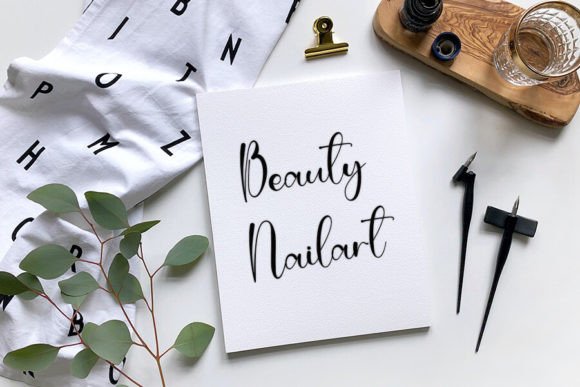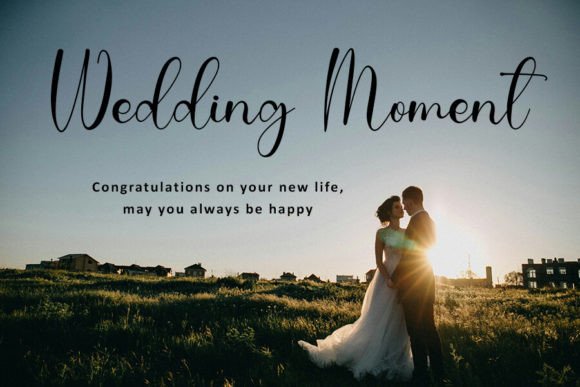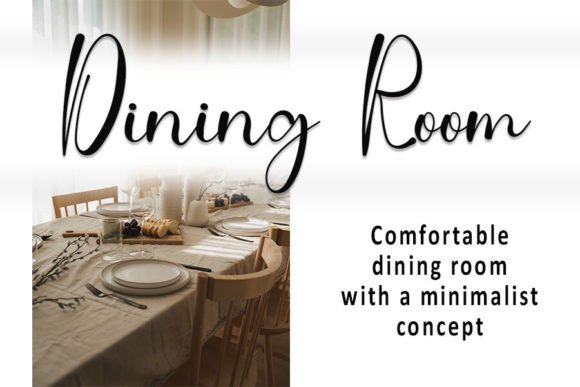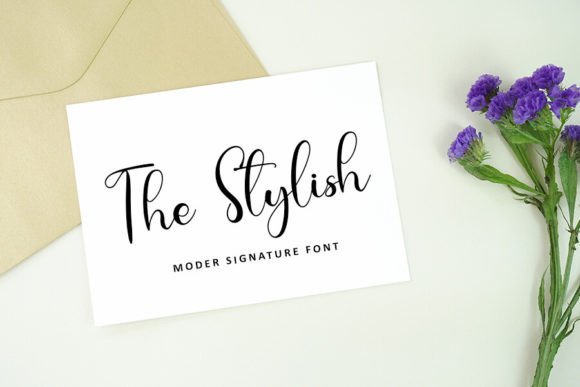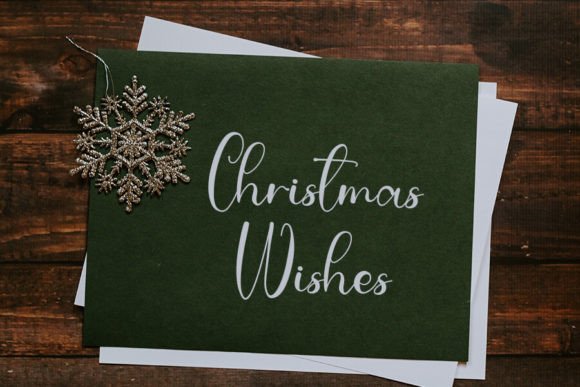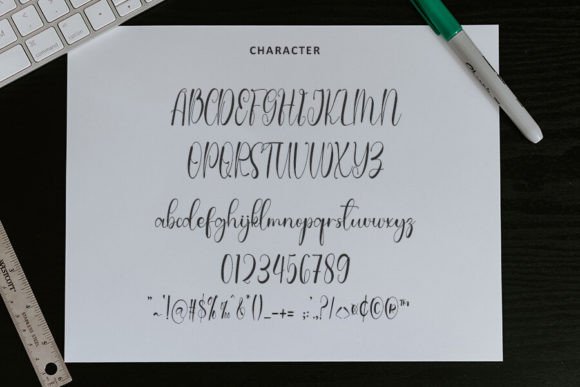
The Magic of the Season: Unveiling the Barbie Bride Font
Do you remember the excitement of decorating your room for Christmas as a child? The twinkling lights, the festive decorations, and the promise of a new year filled with hope and joy. For many of us, the holiday season is a time of enchantment and wonder. As designers, we strive to capture this essence in our work, and that’s where the Barbie Bride Font comes in – a festive and merry typeface that brings a touch of magic to your designs.
Perfect for greeting cards, gift tags, and holiday-themed projects, the Barbie Bride Font adds a whimsical flair that’s sure to delight. With its decorative elements and PUA encoding, this font makes it easy to access all the amazing glyphs and ligatures, giving you the freedom to let your typography shine with the magic of the season. Whether you’re a seasoned designer or just starting out, the Barbie Bride Font is a valuable addition to your toolkit, guaranteed to bring a smile to your clients’ faces and a dash of holiday cheer to their projects.
Barbie Bride Font Key Features
- Font Family: Barbie Bride, a custom-designed font for a whimsical and elegant look.
- Unique Characteristics: Features a distinctive, flowing script style with intricate details and ornate flourishes, perfect for wedding invitations, stationery, and other special occasions.
Barbie Bride Font Review
As a designer, I was excited to dive into the Barbie Bride Font, hoping to find a whimsical and elegant script for my next project. Here’s my honest review.
- The font has a charming, vintage feel that’s perfect for wedding invitations, baby showers, or any feminine-themed project.
- The script is highly customizable, allowing for easy adjustments to font size, color, and spacing.
- The font is well-behaved and looks great on both digital and print materials.
- The font is relatively thin and may not be suitable for large-scale use, such as billboards or signage.
- The script can be difficult to read for certain users, particularly those with visual impairments or dyslexia.
- The font is not as versatile as some other script fonts, making it less suitable for corporate or modern designs.
Overall, the Barbie Bride Font is a lovely addition to any designer’s toolkit. While it has its limitations, it’s a great choice for projects that require a touch of femininity and elegance. Just be sure to use it judiciously and consider your audience’s needs.